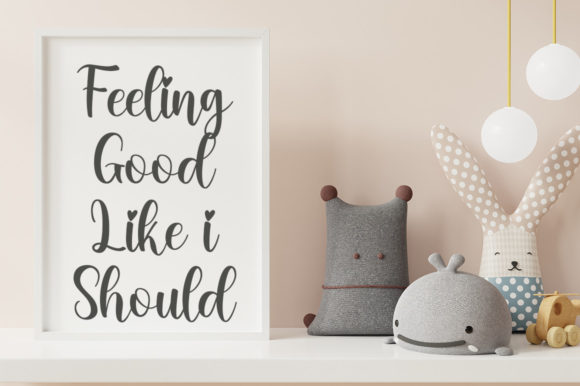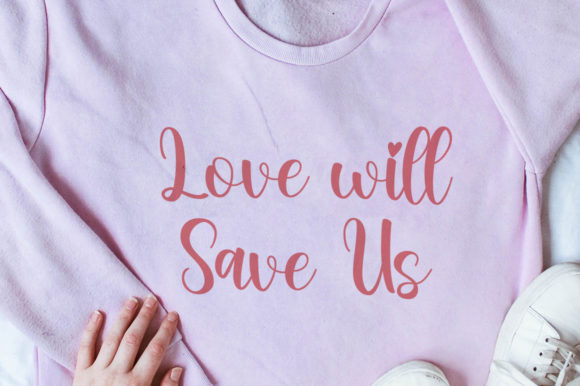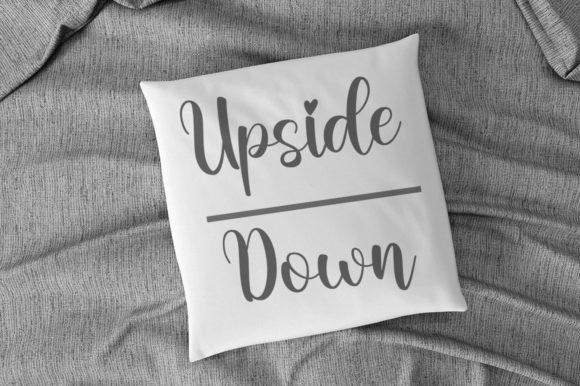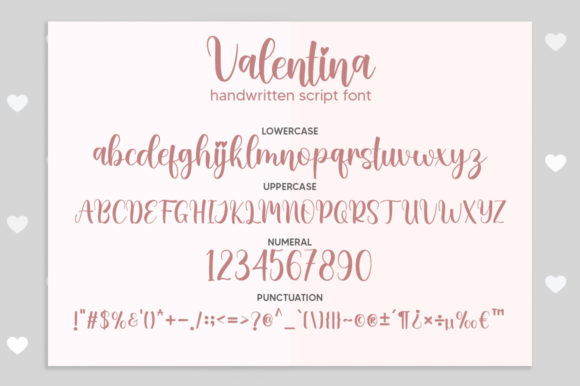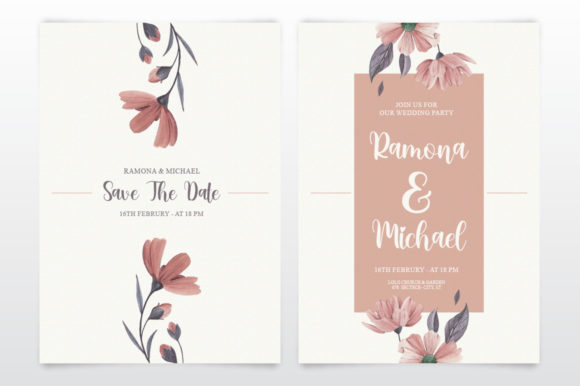
Valentina Font
About Valentina Font
Valentina is a magical handwritten font. It looks ravishing on invitations, thank you cards, quotes, greeting cards, logos, business cards and every other design which needs a customized touch.